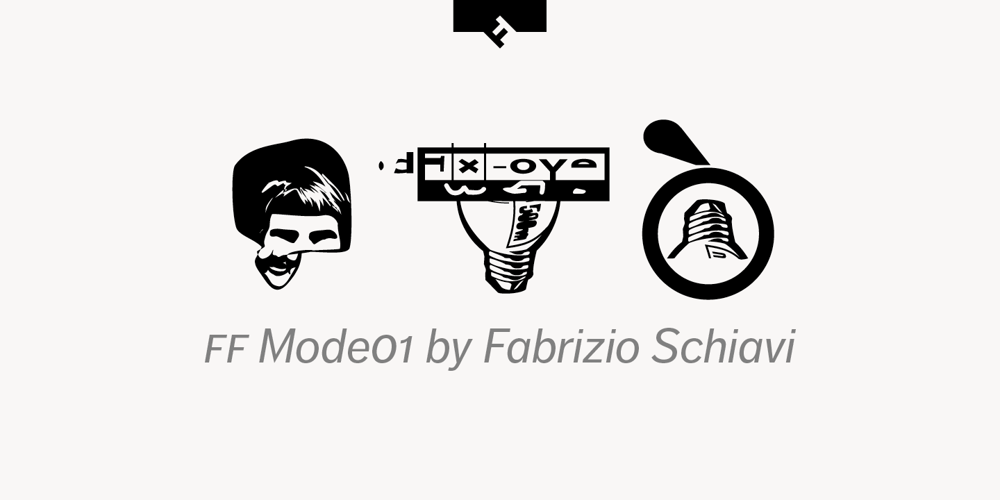
FF Mode01
FF Mode01 font
FF Mode01 Font Family was designed by Fabrizio Schiavi and published by FontFont. FF Mode01 contains 1 styles and family package options. Italian type designer Fabrizio Schiavi created this pi and symbols FontFont in 1995. The font is ideally suited for music and nightlife and software and gaming. It comes with proportional lining figures.